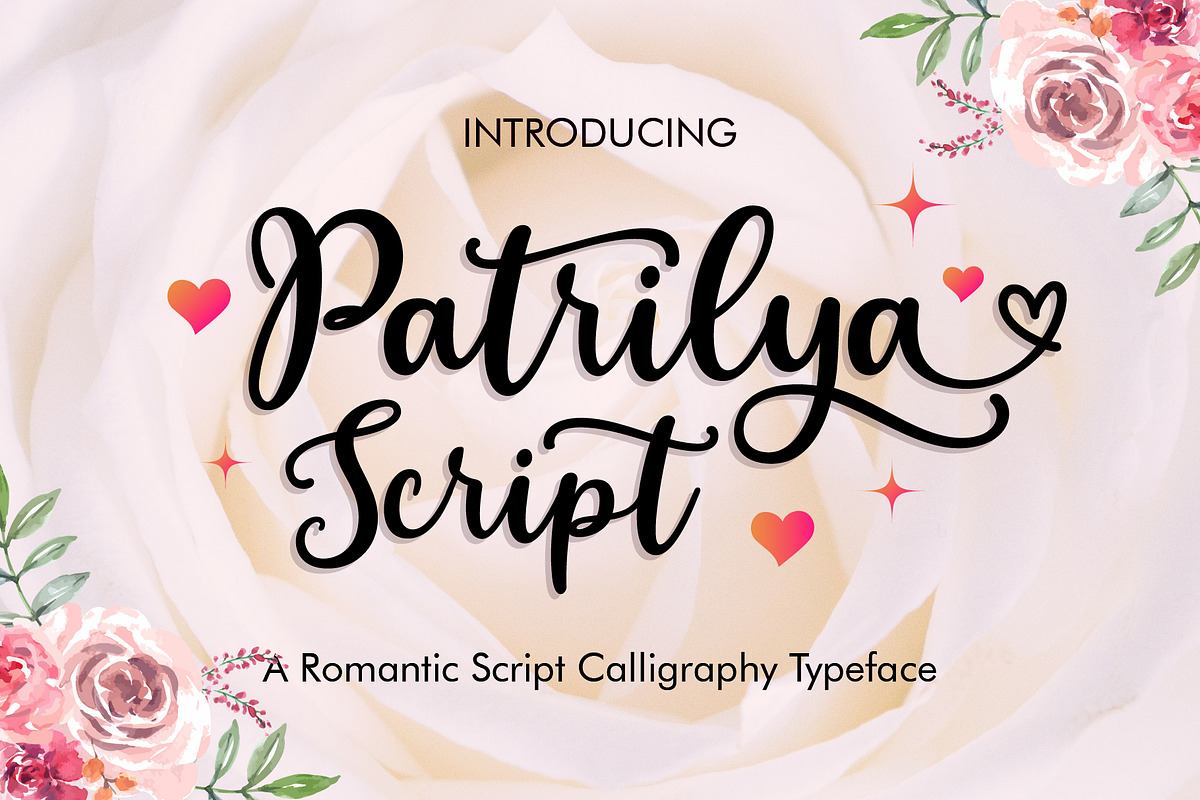
Patrilya Script Font Free Download is an elegant, flowing script typeface that blends classic calligraphy with a modern touch. With its graceful curves, stylish swashes, and smooth connections, Patrilya is perfect for wedding invitations, personal branding, product packaging, signature logos, and feminine social media content.
This font radiates romance and sophistication, making it a go-to choice for designers looking to add a handwritten, luxurious feel to their work. Whether you're designing for print or digital platforms, Patrilya delivers timeless beauty with a personal flair.
It includes ligatures and stylistic alternates to give your typography extra versatility and character.